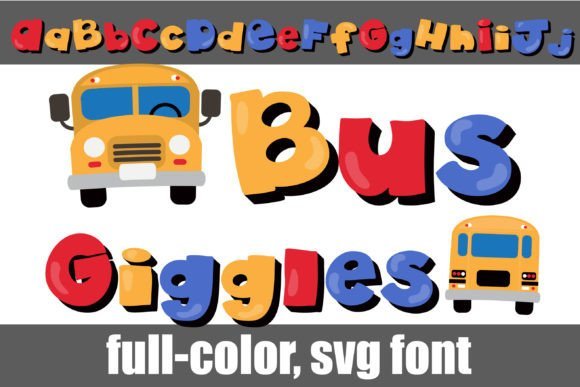
Introducing Bug Giggles Font, a full-color font that adds a playful touch to any design. With its primary colored lettering and heavy black shadows, Bug Giggles Font is the perfect way to inject some personality into your work. This versatile font is designed to bring a smile to your audience’s faces, making it a valuable addition to any designer’s toolkit.
Whether you’re working on a children’s book, a social media campaign, or a product label, Bug Giggles Font is sure to bring a touch of whimsy and fun to your designs.
Key Features of Bug Giggles Font
- Font Family: Bug Giggles is a sans-serif font family that comes in multiple styles, including regular, bold, italic, and bold italic.
- Unique Characteristics: Bug Giggles features a playful, rounded design with a mix of straight and curved lines, giving it a friendly and approachable feel.
Designer Review: Bug Giggles Font
Overall, I’d say Bug Giggles Font is a quirky, playful addition to any design project. Here are some things that work well: ✨
- Unique, whimsical style that’s sure to stand out
- Variety of weights and styles to choose from, making it versatile for different design needs
- Good for headings and titles, as the bold font really makes an impact
- May not be the best choice for body text, as it can be quite difficult to read at smaller font sizes
- Lack of ligatures and kerning can lead to some awkward spacing between letters
- May not be suitable for formal or professional designs, as its playful nature can come across as unprofessional
Overall, I’d give Bug Giggles Font 3.5 out of 5 stars. It’s a fun, creative choice that’s perfect for projects where you want to add some personality and whimsy. However, it’s not the best choice for every design project, and you may need to use it in moderation to avoid overwhelming your audience.
Getting the Most Out of Bug Giggles Font
For best results, use Bug Giggles Font in combination with playful, whimsical graphics and bright colors.
Consider using Bug Giggles Font for titles, headings, and other emphasis text to add a touch of whimsy to your designs.
Use Bug Giggles Font for:
- Playful social media graphics and ads